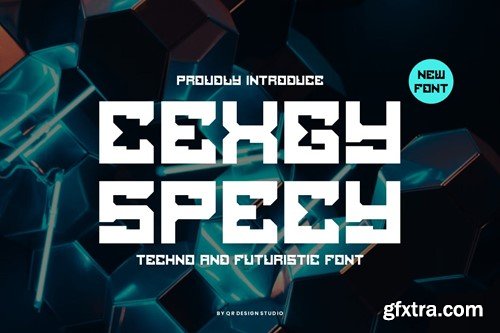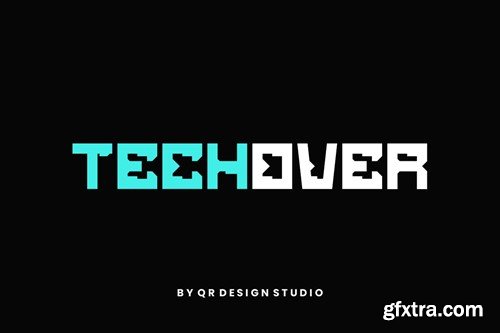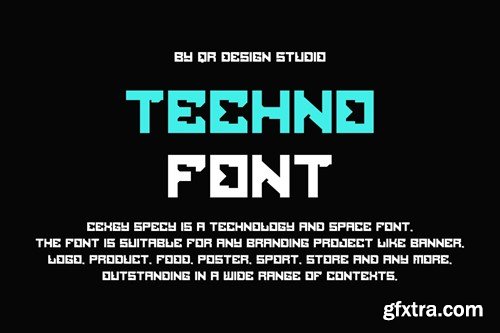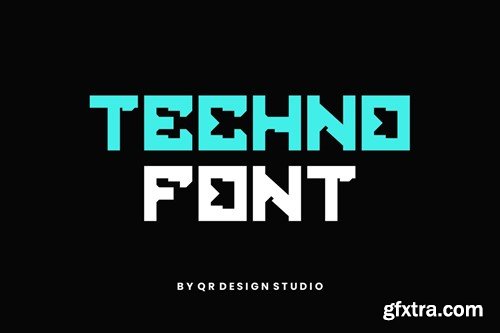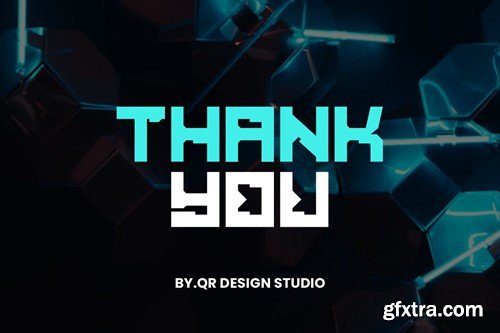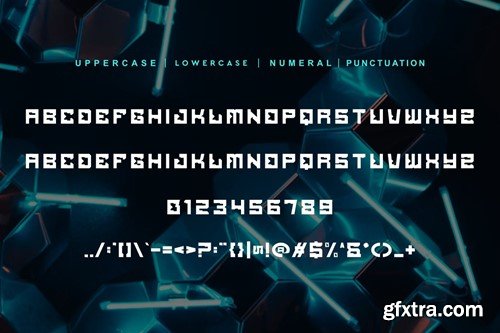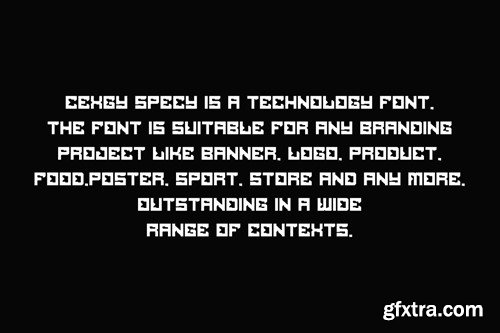
Cexgy Specy - Tech & Digital Font
Cexgy Specy Font is a bold and authentic display font. The font is suitable for any branding project like poster, logo, sport, and many more. Outstanding in a wide range of contexts.